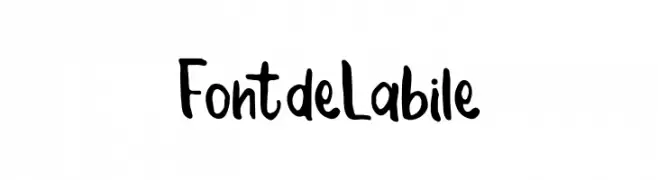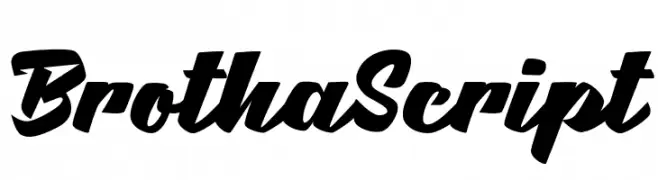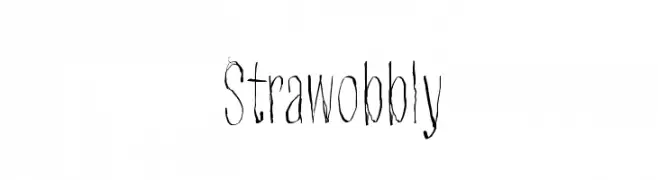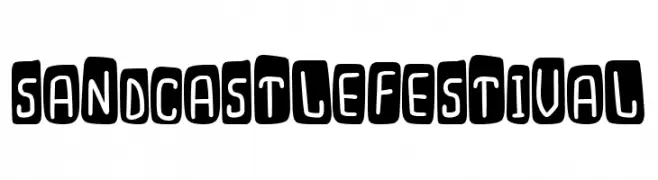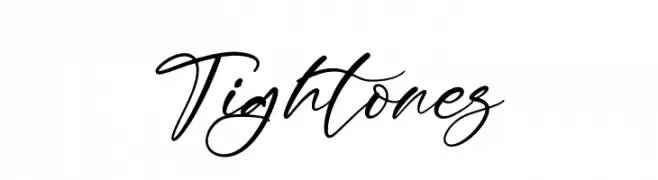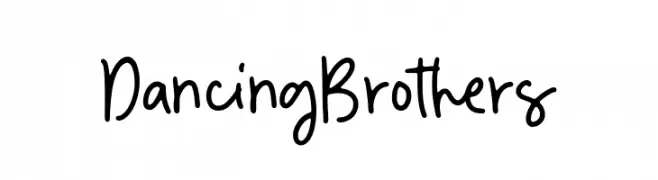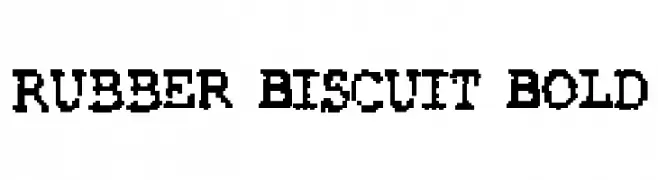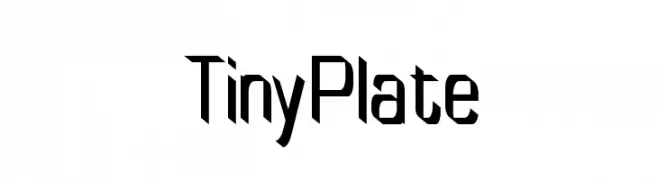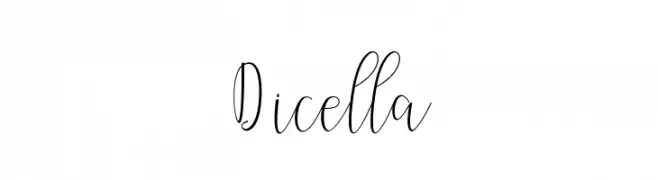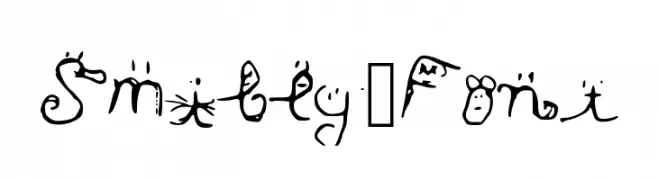
A playful, handwritten font with irregular strokes and a whimsical style.
A decorative font with intricate, artistic designs on each character.
A bold, dynamic script font with a strong, handwritten style.
A modern, geometric sans-serif font with a clean and structured design.
A whimsical, hand-drawn font with uneven, wobbly strokes.
A playful, bold font with characters in rounded rectangles, ideal for creative projects.
A fluid, cursive script font with elegant, sweeping strokes and a handwritten appearance.
A playful, informal handwritten font with uneven strokes.
A playful, handwritten font with a casual and lively style.
A bold, pixelated font with a retro digital aesthetic.
A bold, geometric font with a modern and futuristic style.
A graceful, elegant script font with flowing, interconnected letters.
A modern, semi-bold, oblique sans-serif font with a clean and dynamic style.
A bold, distressed font with a rough, textured appearance.
A playful, handwritten-style font with a bold, slanted appearance.
A graceful, handwritten script font with elegant, flowing letters.
A modern italic font with smooth strokes and medium contrast.
Cartoonish, illustrated font with each glyph as a unique character or scene.
A sleek, italicized font with a futuristic and dynamic style.
Cartoonish superhero-themed decorative font with illustrated character glyphs.
A whimsical, creature-themed decorative font with bold, playful characters.
A bold, angular font with a strong, dynamic presence and cultural flair.